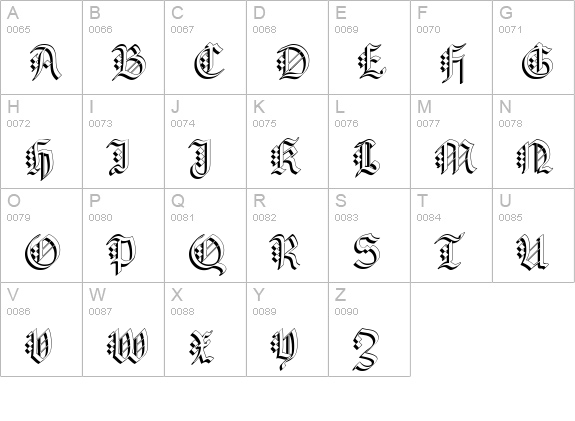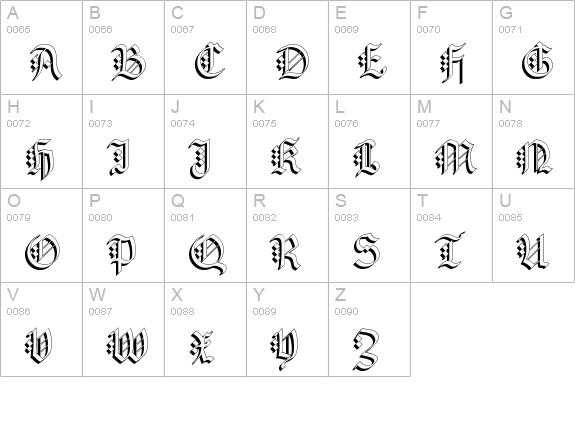
AlbertBetenbuchExtrude Font Details
AlbertBetenbuchExtrude font is a stunning display font that exudes elegance and sophistication. With its intricate details and sharp lines, this font is perfect for creating eye-catching designs that demand attention. The unique extruded effect adds depth and dimension to any text, making it stand out from the crowd. What sets AlbertBetenbuchExtrude font apart is not only its striking design, but also the fact that it is available for free download at FontsMarket.com. This means that you can add this beautiful font to your collection without any cost, making it a valuable asset for any designer looking to elevate their projects. Whether you're working on a branding project, a poster design, or any other creative endeavor, AlbertBetenbuchExtrude font is sure to make a lasting impression. Download it today and see the impact it can have on your work!